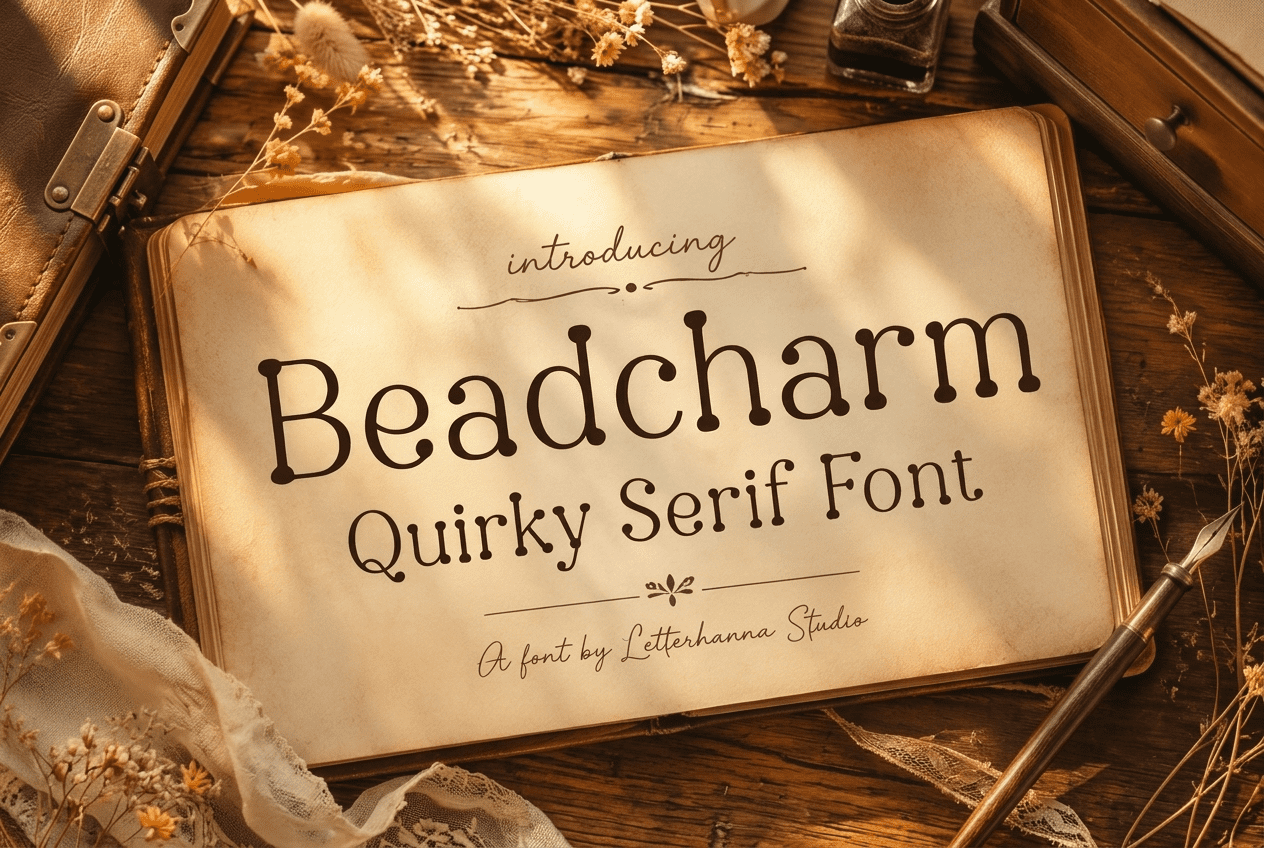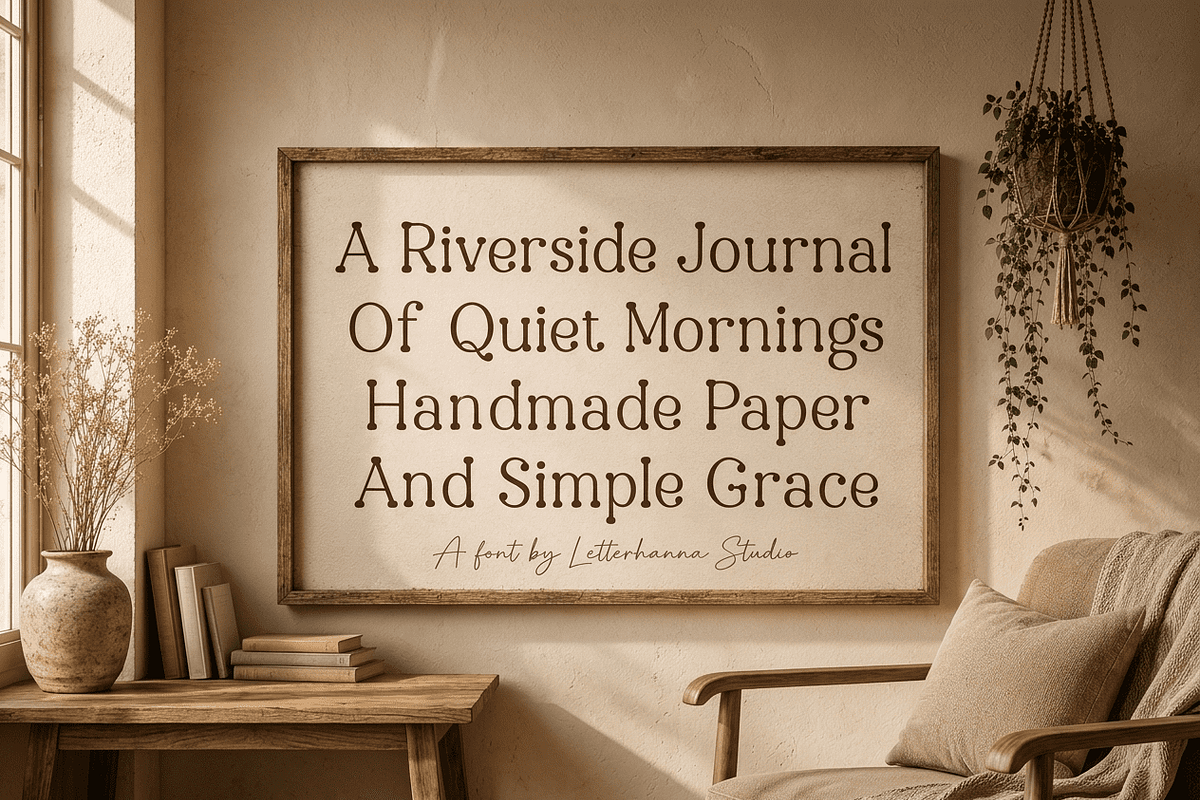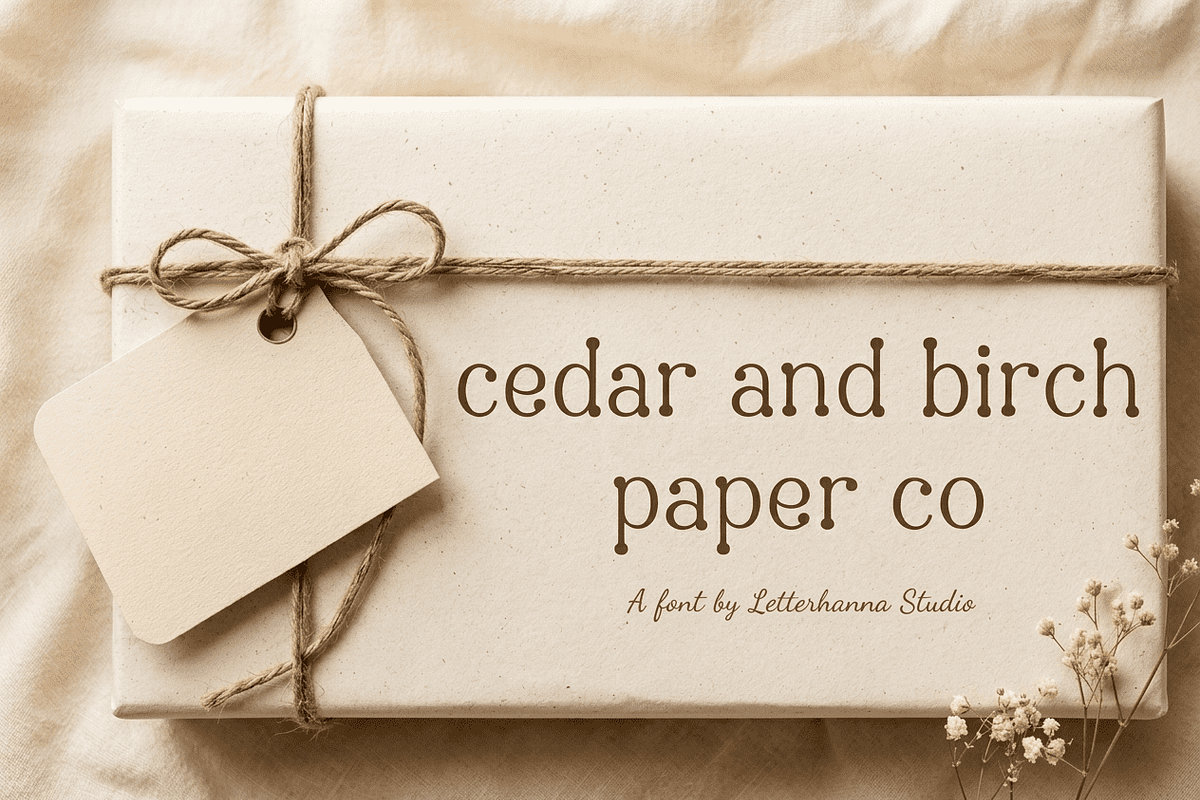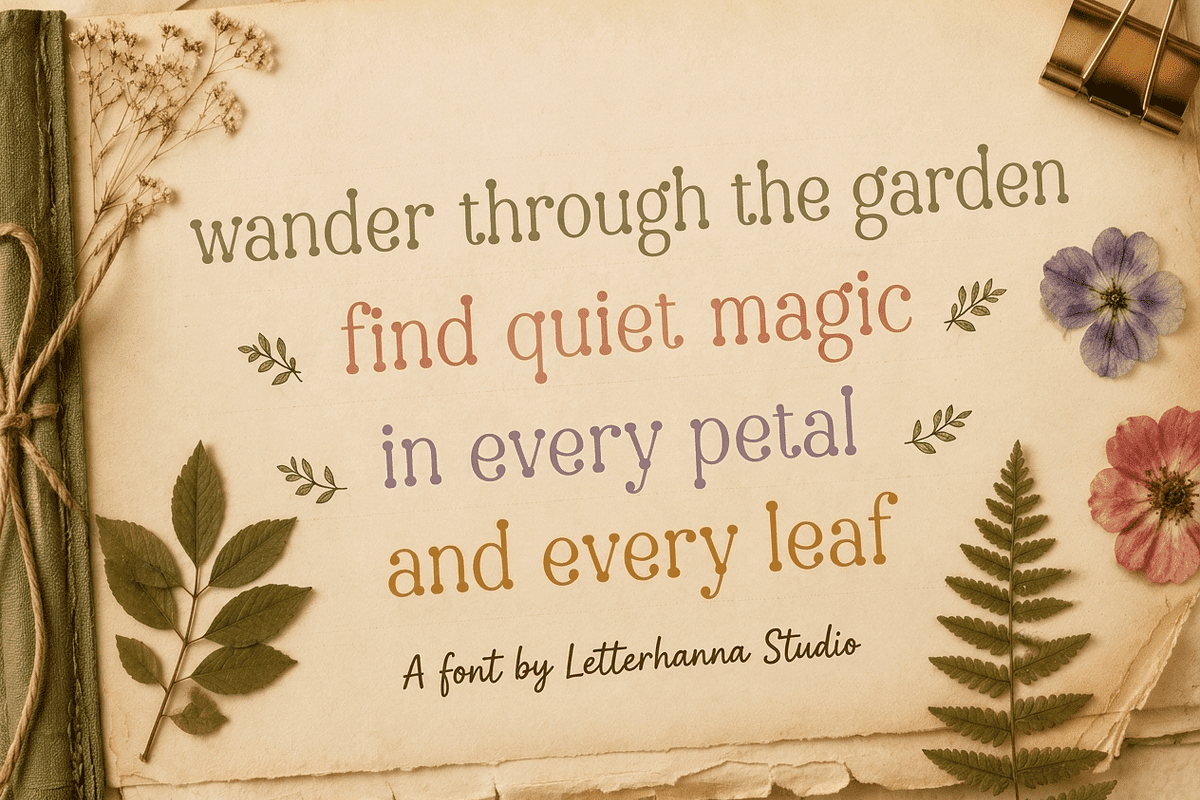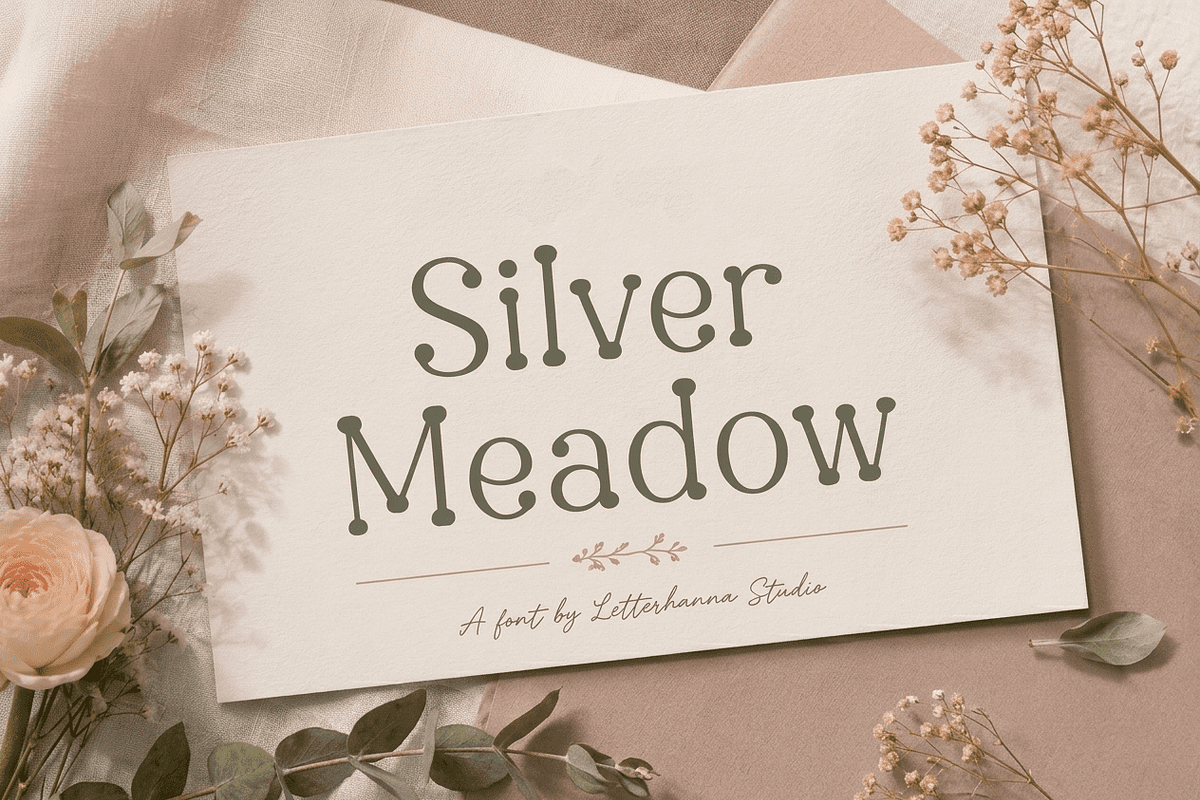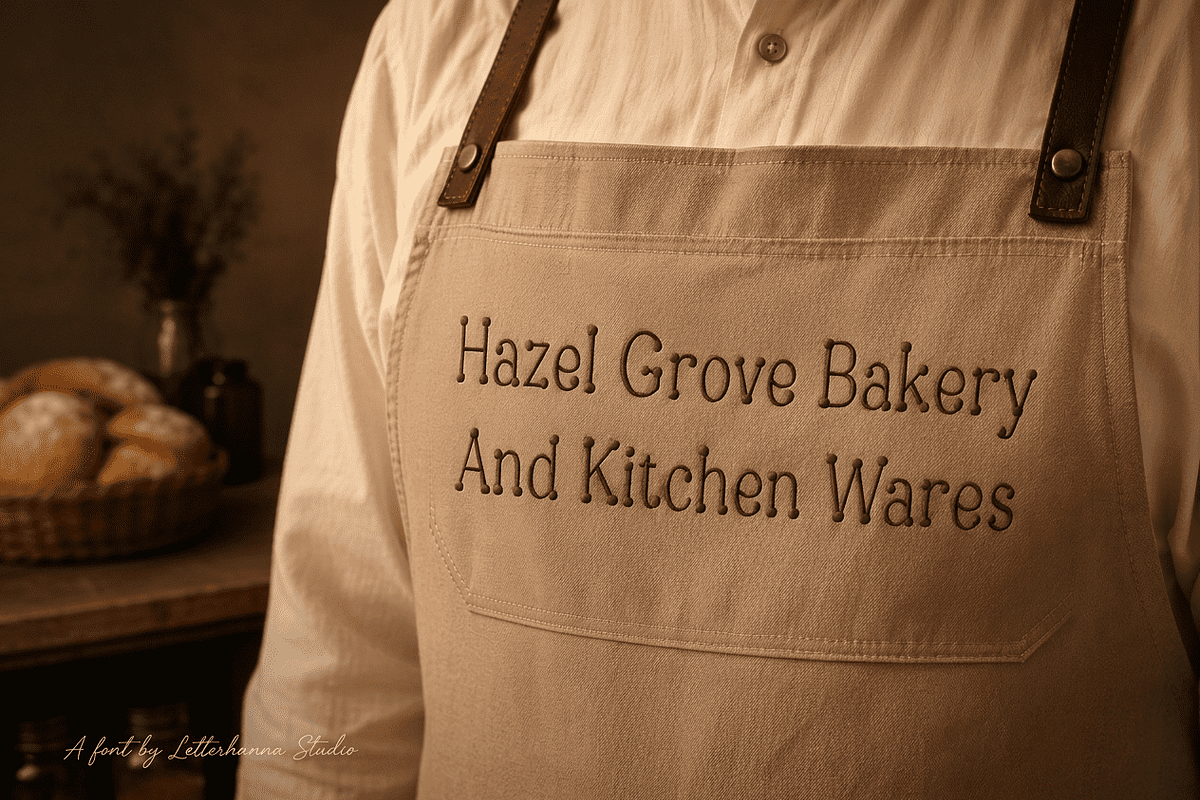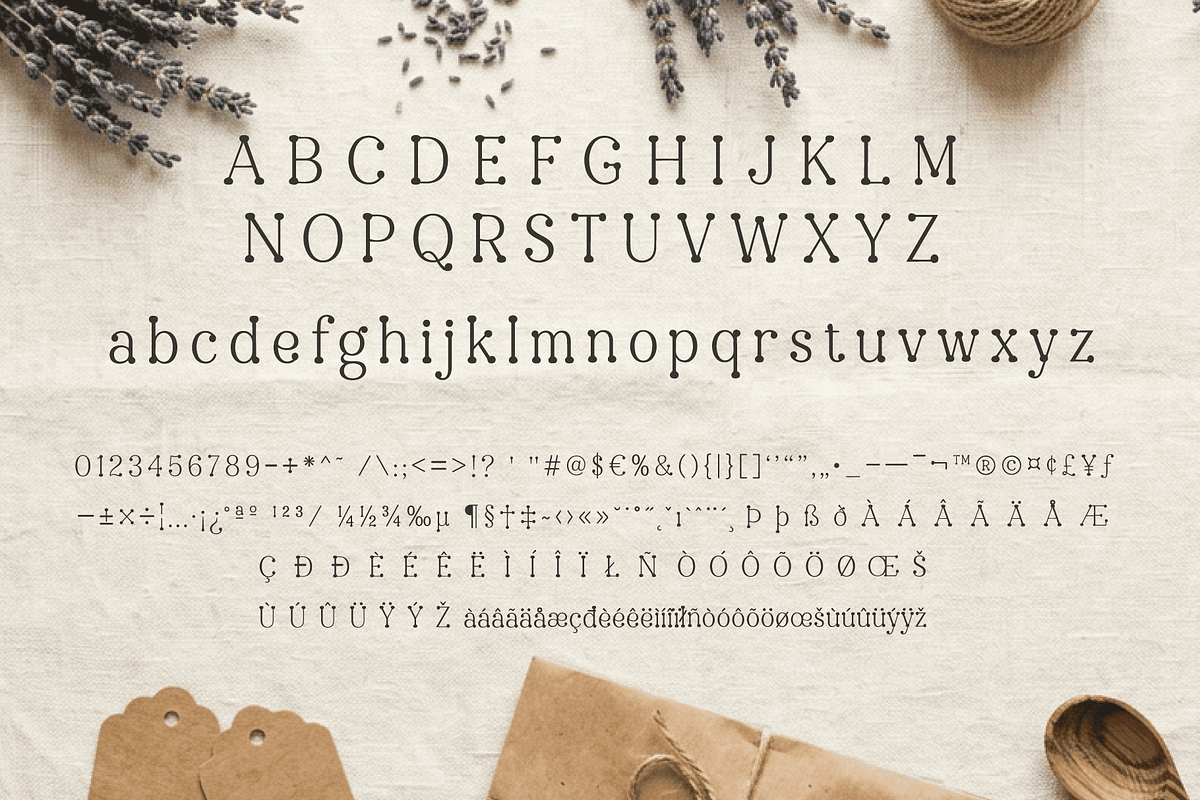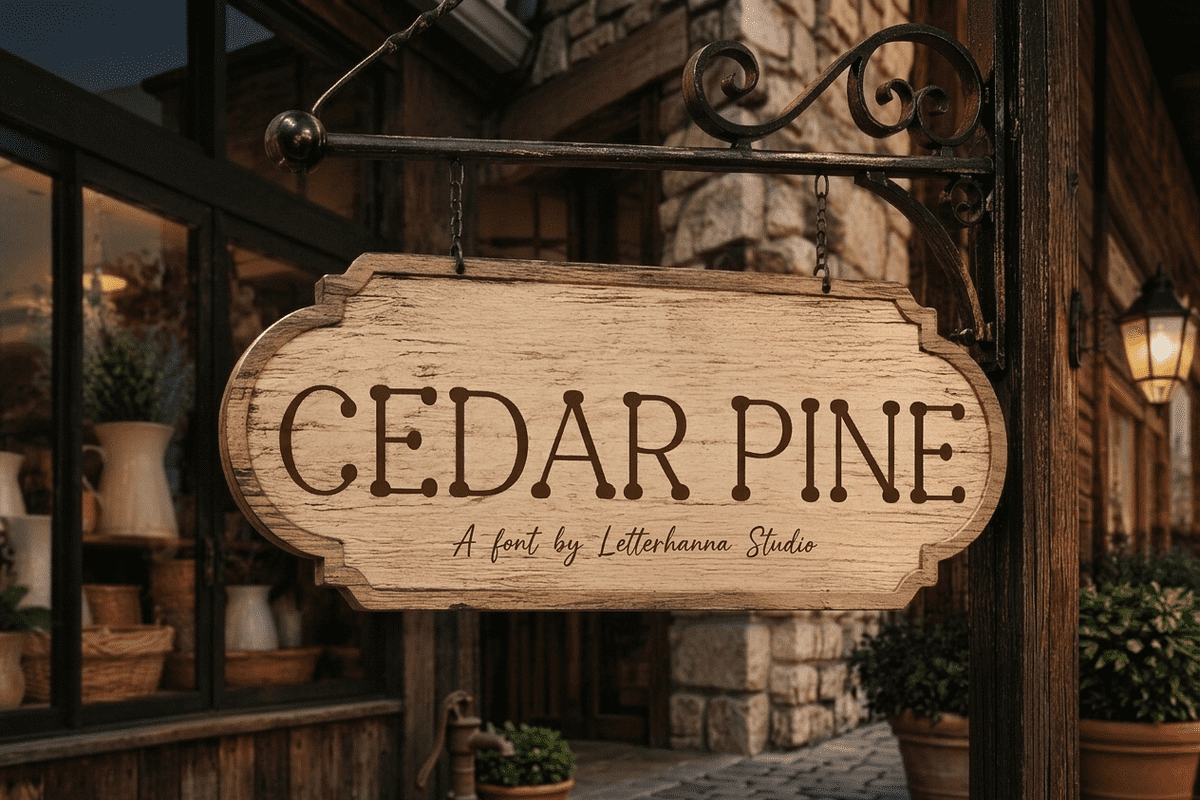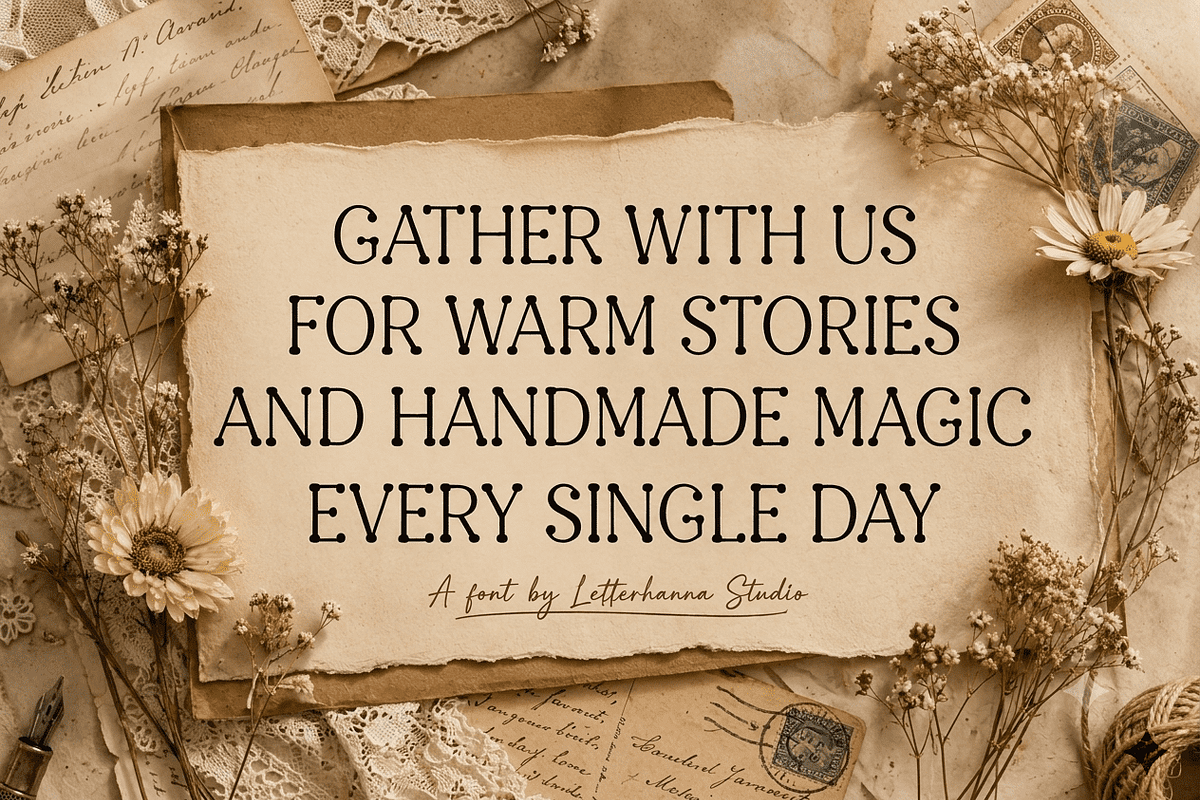
Beadcharm: Weird and Wonderful Font
There's a typeface for every mood, but every once in a while one comes along that feels like it was made by hand rather than generated by a machine. Meet Beadcharm — a quirky, funky, slightly weird circle serif font that turns ordinary letters into something you actually want to look at twice.
Instead of the usual sharp serif terminal, every stroke in Beadcharm ends in a small solid circle, like tiny beads strung carefully along thread. The lowercase letters feel soft and rounded, almost playful, while the uppercase set leans into an old-style, typewriter-inspired formality — creating a beautiful contrast between charming and classic.
This isn't a font built for speed or neutrality. It's a font built for character. Think vintage stationery, handmade jewelry boxes, grandmother's sewing kit, dried flowers pressed into a journal. Beadcharm carries that same nostalgic, handcrafted warmth into every project it touches — wedding invitations, boutique packaging, candle labels, cookbook headers, farmers market signage, and small business branding that wants to feel personal rather than corporate.
Pair it with a soft color palette — dusty rose, sage green, cream, antique gold — and warm textures like linen, kraft paper, or dried botanicals, and you've got a complete visual identity that feels curated rather than default.
If you've been searching for a font that's structured enough to be legible but decorative enough to be memorable, Beadcharm is exactly that sweet spot. It's quirky without chaos, weird without illegibility, and funky in all the right ways.